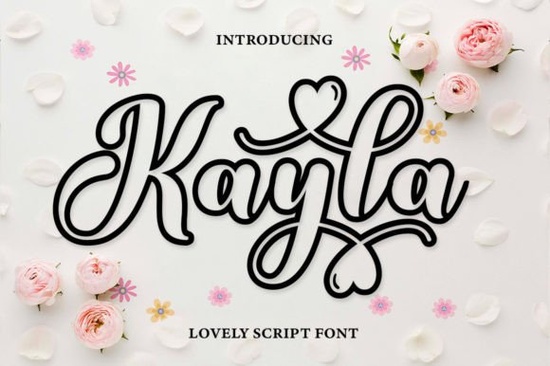
If you’re looking for a handwritten font that feels personal, warm, and just a little playful, Kayla Outline Font might be exactly what your next project needs. It’s not overly fancy or stiff instead, it carries a light, romantic energy that works beautifully on invitations, branding materials, social media graphics, or even print-on-demand products like mugs and tote bags.
What makes Kayla Outline especially handy is how flexible it is. You can use it for elegant wedding stationery or cheerful birthday cards without missing a beat. The outline style gives your text depth without needing extra effects, and because it’s PUA encoded, accessing all the special characters, swashes, and alternate glyphs is simple no digging through character maps or installing extra files.
Who is this font best for?
If you run a small creative business maybe you sell custom stickers, printable planners, or digital templates this font adds personality without overwhelming your layout. Crafters love it for vinyl cutting projects because the clean outlines hold up well at different sizes. Print-on-demand sellers find it useful for quotes and short phrases on apparel or home decor. And hobbyists? It’s just plain fun to play with.
You don’t need design software mastery to make it work, either. Whether you’re using Canva, Adobe Illustrator, or even Silhouette Studio, Kayla Outline behaves nicely and scales cleanly. Plus, its language support means you’re not limited to English-only designs great if you’re creating for international audiences or bilingual clients.
How does it compare to other script fonts?
It’s easy to get lost in the sea of script fonts out there. If you’ve tried Sunshine, you know it leans more bubbly and casual. Ashley Southine has a more formal, calligraphic structure. Then there’s Monday, which feels modern and minimal. Kayla Outline sits comfortably between them not too structured, not too wild. Just right for when you want something that feels handcrafted but still polished.
What kinds of projects does it shine in?
- Wedding invites & place cards The romantic tone fits perfectly with soft color palettes and floral elements.
- Social media quote graphics Its outline style pops against photos without needing drop shadows or heavy editing.
- Printable wall art Try pairing it with solid sans-serif fonts for contrast and balance.
- Product packaging or labels Especially for handmade goods, candles, or boutique skincare lines.
- Personalized gifts Think engraved wood signs, embroidered pillows, or etched glassware.
One thing to keep in mind: because it’s an outline font, very small sizes (like below 12pt) might lose some legibility. But for headers, logos, or featured text, it holds up beautifully.
Any tips for getting the most out of it?
First, take advantage of those PUA-encoded glyphs. Open your font manager or glyph panel and scroll through you’ll find subtle alternates that can give your words a more natural, handwritten rhythm. Swashes at the beginning or end of words add flair without going overboard.
Second, don’t be afraid to layer it. Place a solid version of the same word behind the outline (if available) or use a soft shadow effect to make it stand out on busy backgrounds. You can also fill the outline with patterns or gradients in Illustrator or Procreate for a custom look.
Lastly, pair it thoughtfully. Kayla Outline plays well with clean, neutral fonts like Montserrat, Lato, or even a simple serif like Playfair Display. Avoid pairing it with other highly decorative scripts that’s where things can get visually noisy.
Whether you’re designing for clients or just for fun, Kayla Outline adds charm without demanding perfection. It’s the kind of font that feels like it was made by hand because in spirit, it was.